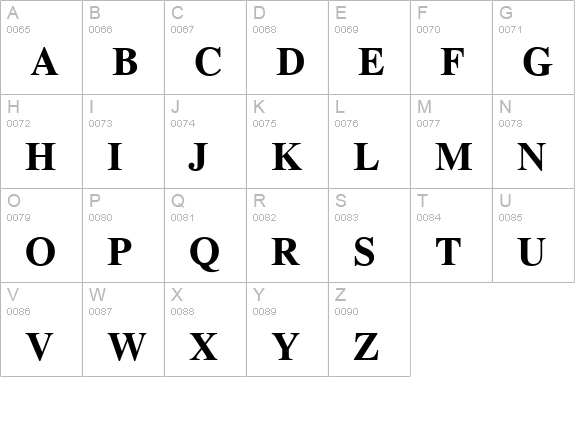
CG Times Bold Font Details
CG Times Bold is a strong, high-contrast variant in the CG typeface family \xE2\x80\x94 well suited to headlines, attention-grabbing titles, and strong calls-to-action.
CG Times Bold is a classic and timeless font that exudes elegance and sophistication. With its bold and sturdy appearance, this typeface is perfect for making a strong statement in your designs. The thick strokes and sharp serifs of CG Times Bold command attention and convey a sense of authority. What makes CG Times Bold even more appealing is that it is available for free download at FontsMarket.com. This means you can easily access and use this impressive font in your projects without any cost. Whether you're creating professional documents, eye-catching advertisements, or stylish branding materials, CG Times Bold is a versatile choice that will elevate your designs to the next level. Don't miss out on the opportunity to enhance your typography with CG Times Bold - download it for free today at FontsMarket.com and add a touch of sophistication to your projects.